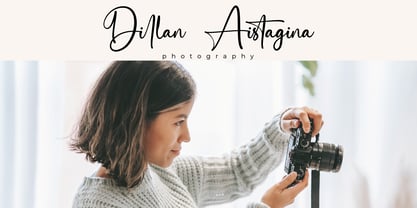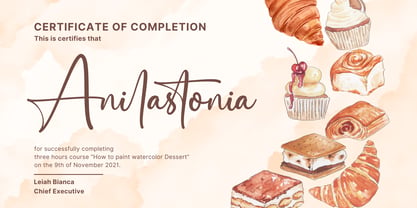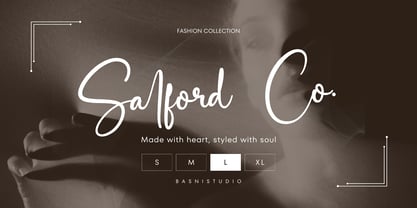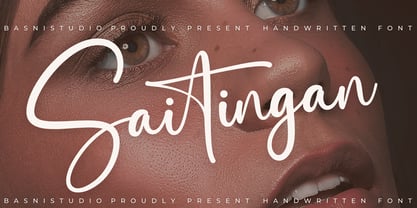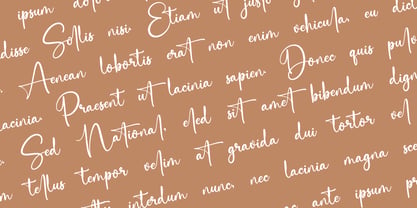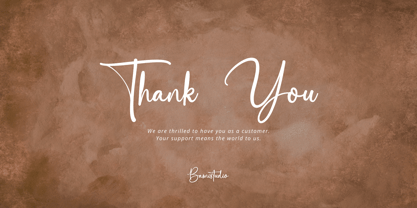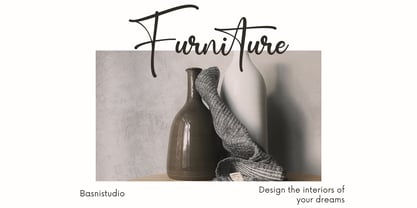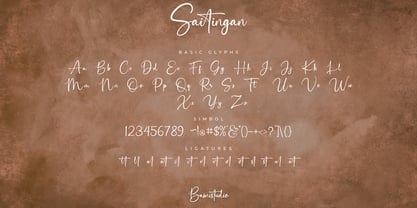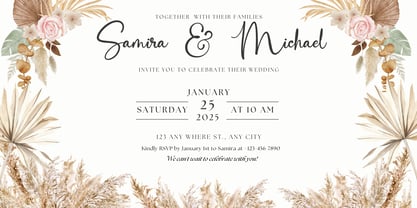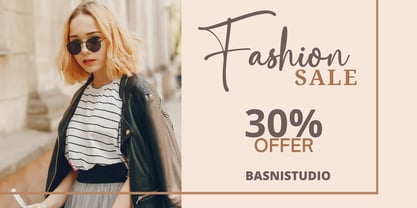
Saitingan
by Basnistudio
The Saitingan Font Family was designed by Bery Arisandi and published by Basnistudio. Saitingan contains 1 styles. More about this family
The Perfect Handwritten Touch for Your Designs Introducing Saitingan a Handwritten Font that adds a elegant, versatile touch to everything from branding and social media to invitations and packaging. Elegant & Versatile – Perfect for logos, quotes, greeting cards, and more Authentic Handwritten Feel – Created with real pen strokes for a natural look Easy to Use – Works seamlessly with all major design programs Whether you’re building a powerful brand identity or crafting a standout logo, Saitingan gives you the creative edge you need. What’s Included: Uppercase & lowercase letters Ligature Numbers & punctuation Multilingual Support ( Support for 90 languages ) If you have any questions please don’t hesitate to contact me And check our Site Basnistudio Thank You Very Much